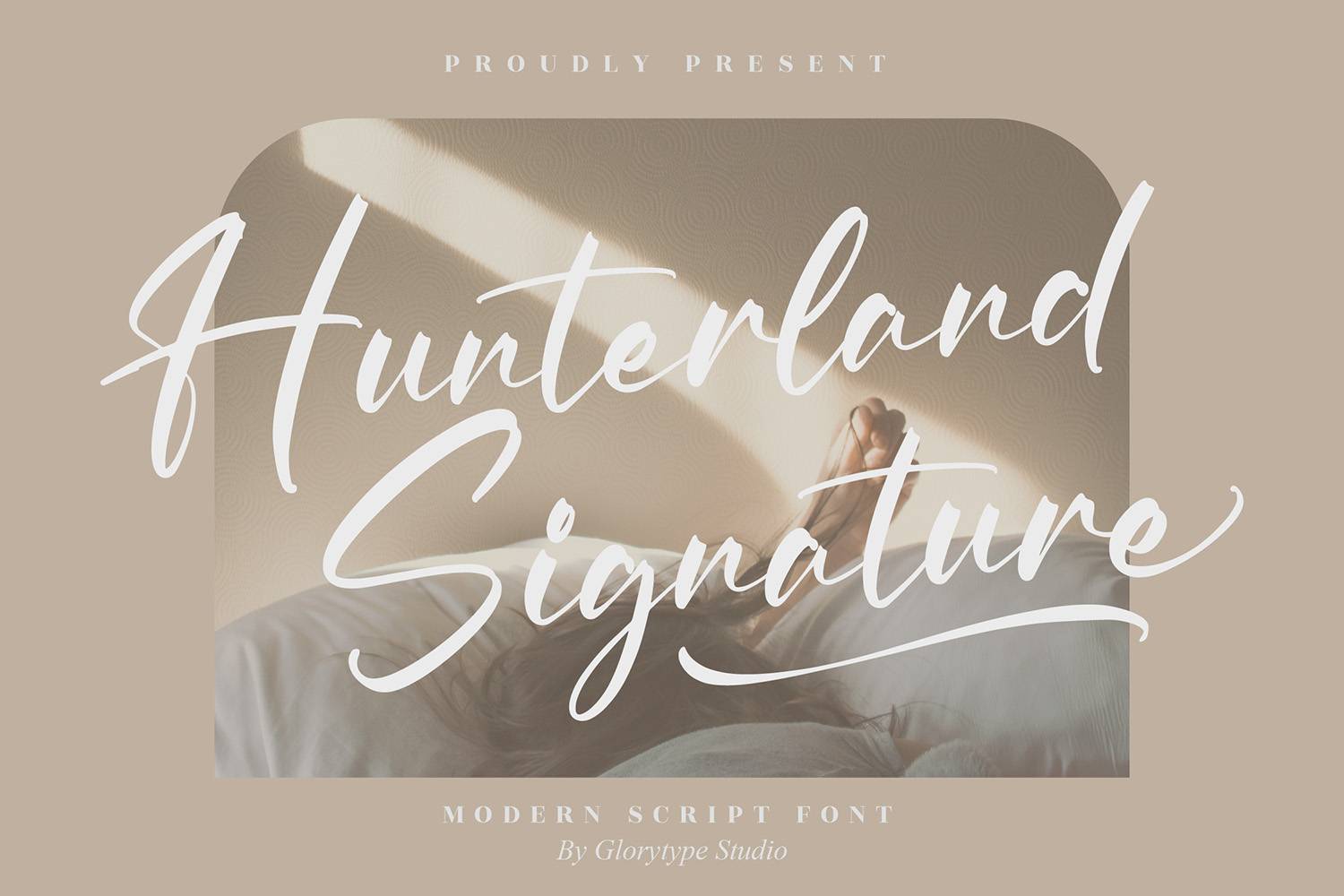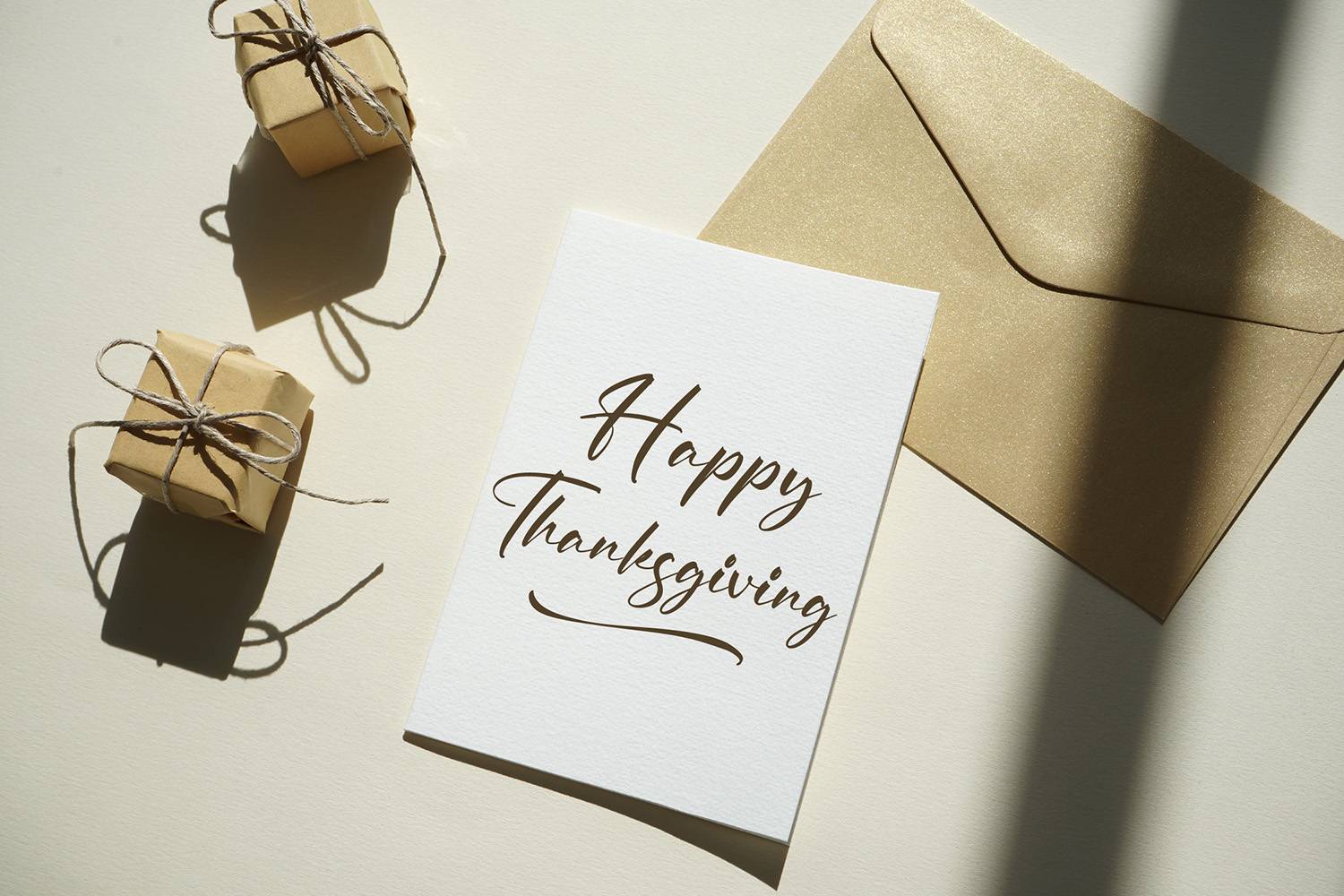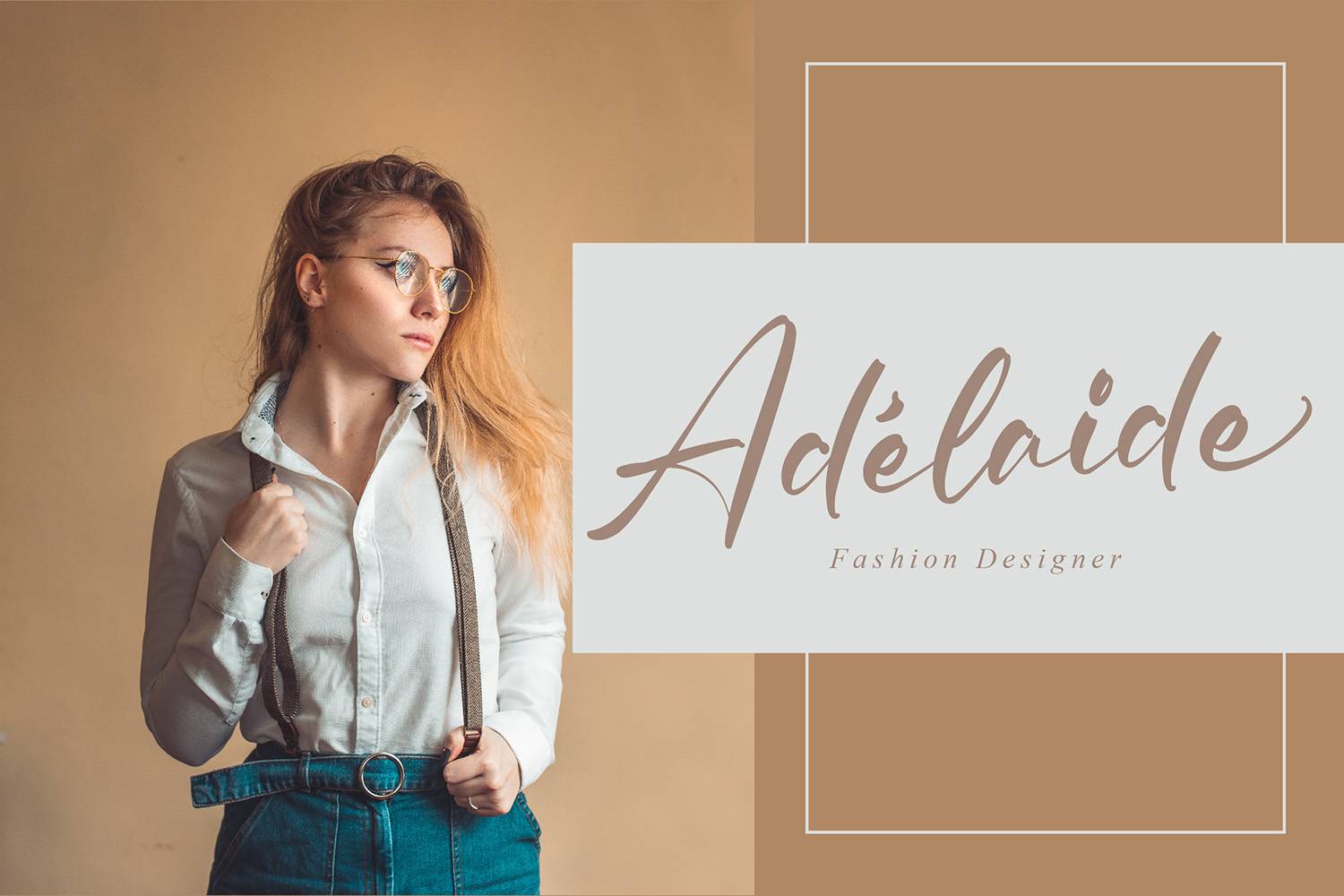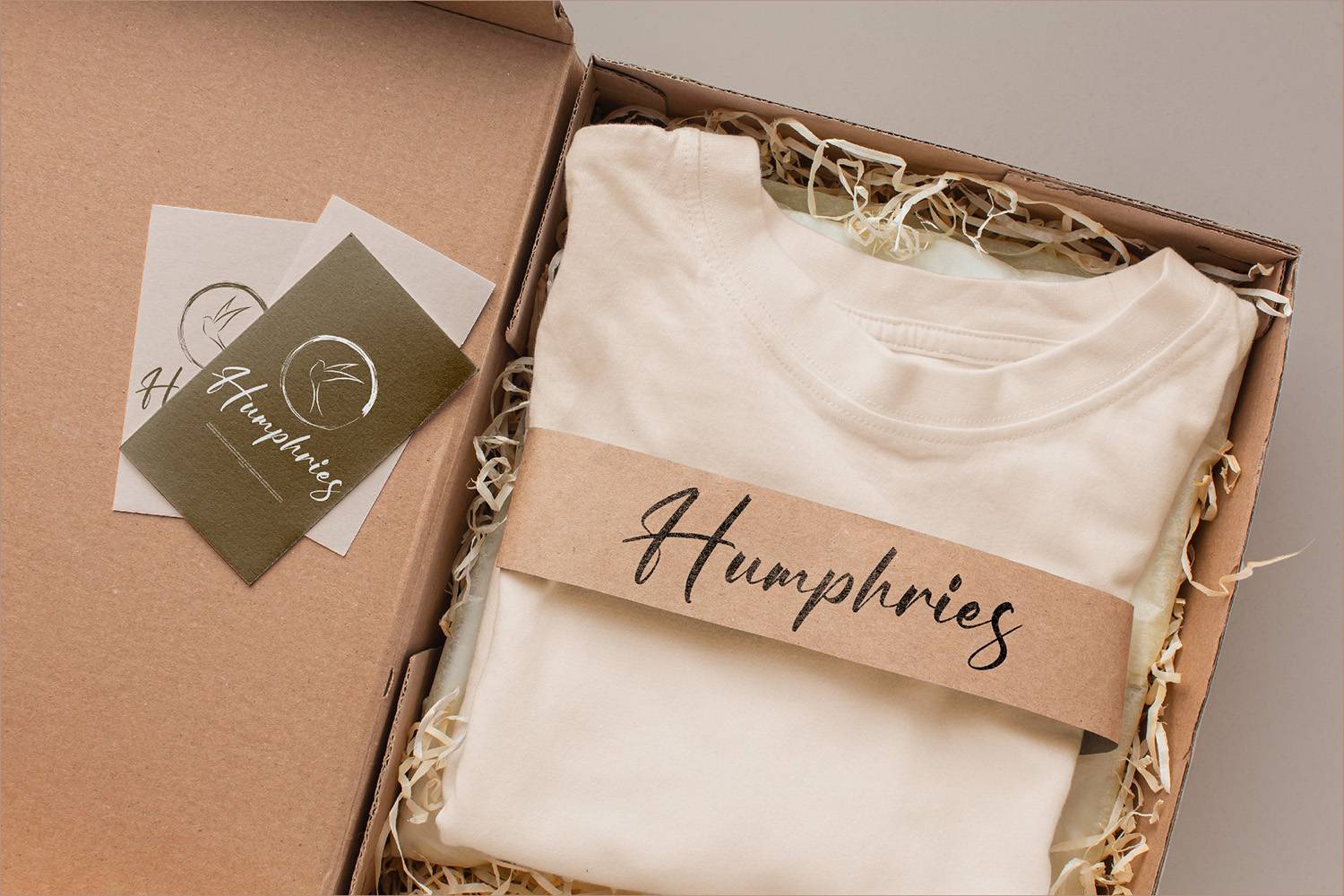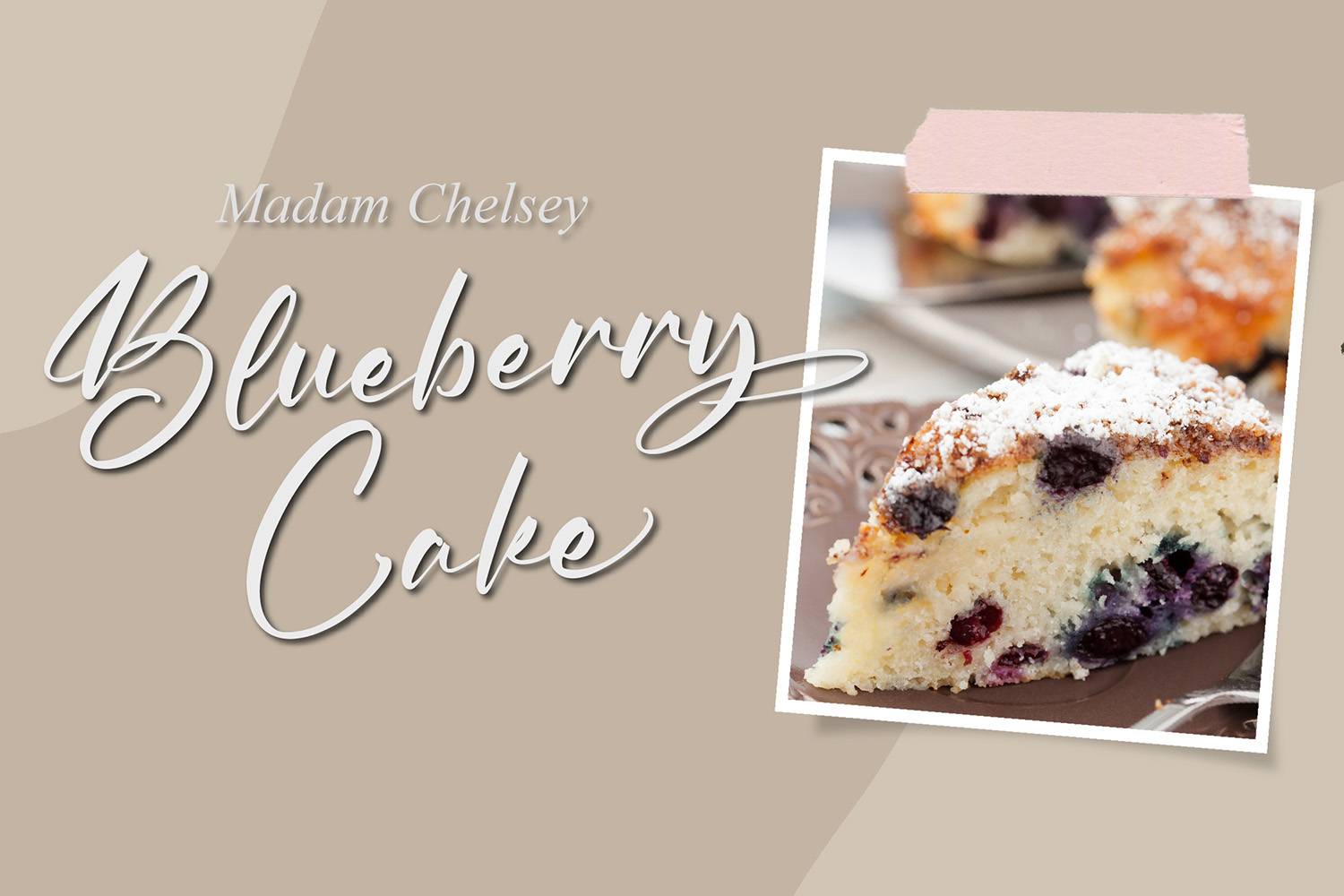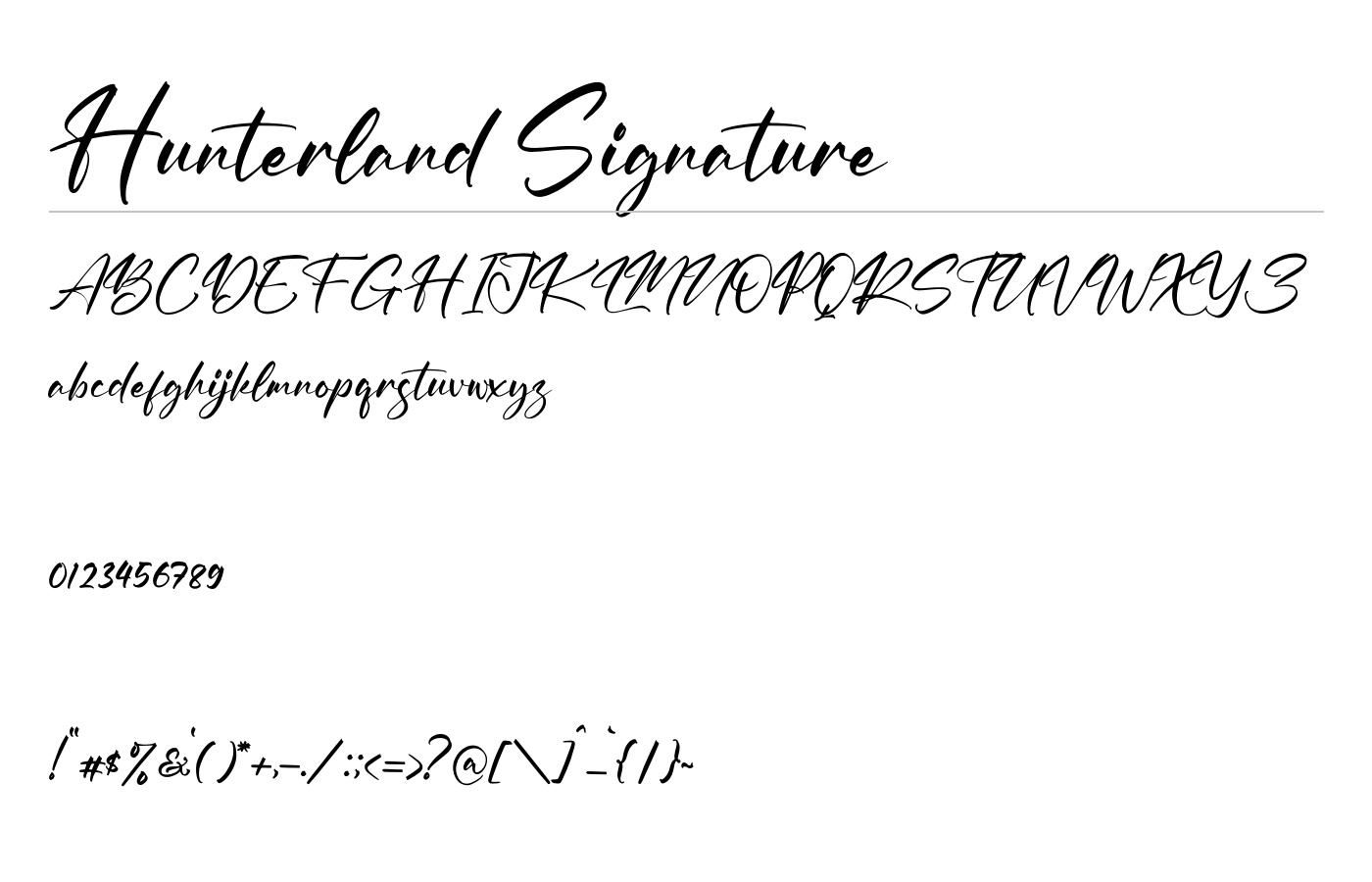
Hunterland Signature is a stylish handwritten script font that captures the graceful flow of natural handwriting with a modern twist. Its elegant, slightly textured strokes and varied letterforms deliver a personal and creative feel, making it perfect for branding, invitations, and editorial projects that seek a sophisticated yet approachable look. This font works beautifully for designs needing an authentic signature style that adds warmth and charm.
Hunterland Signature Font